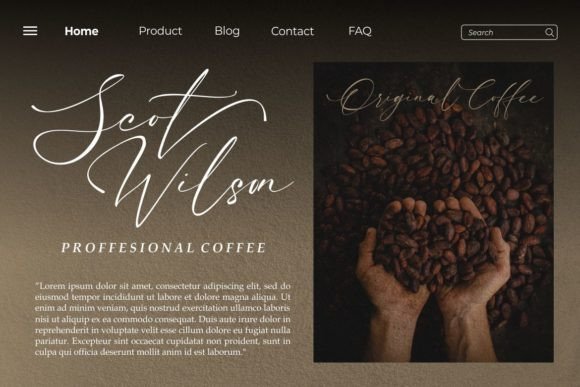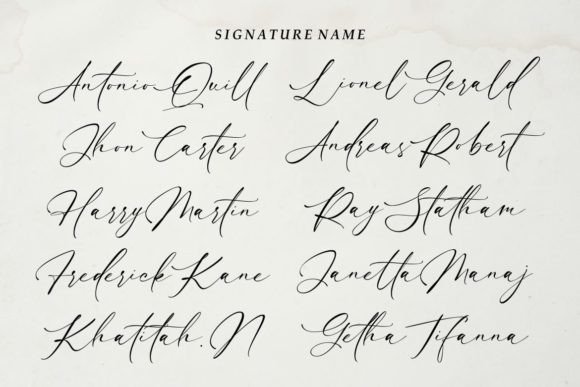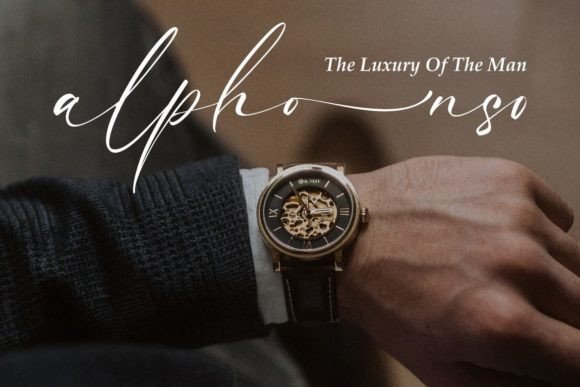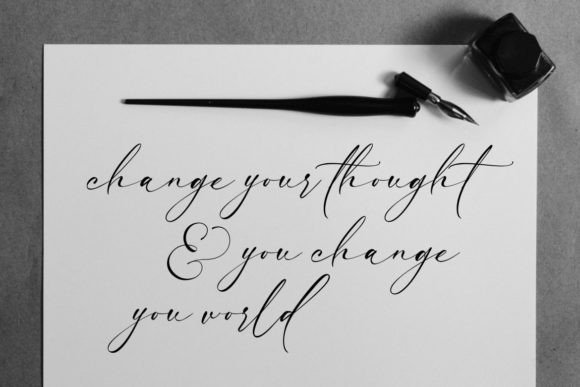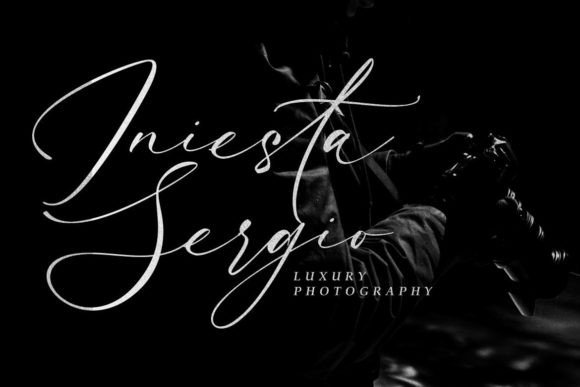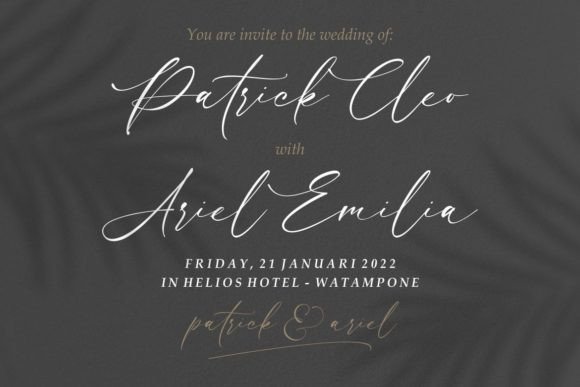
Introduction to Luxury Modish Font
Luxury Modish is a Modern Calligraphy font inspired by beautiful writing that has a luxurious feel with additional swash lines.
Luxury Modish is perfect for branding, photography, invitations, quotes, watermarks, advertisements, product designs, social media posts, stationery, labels, and more .
Key Features of Luxury Modish Font